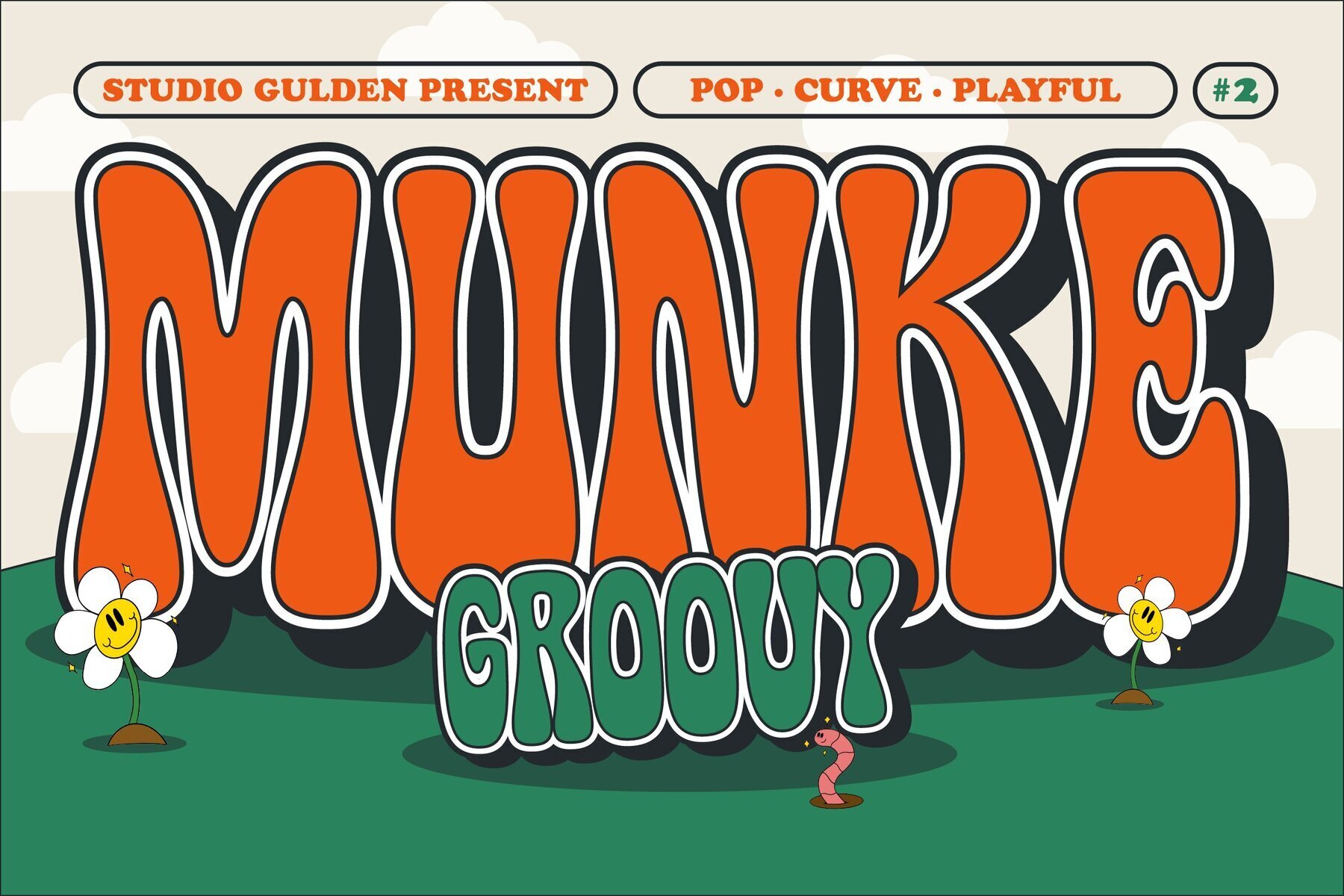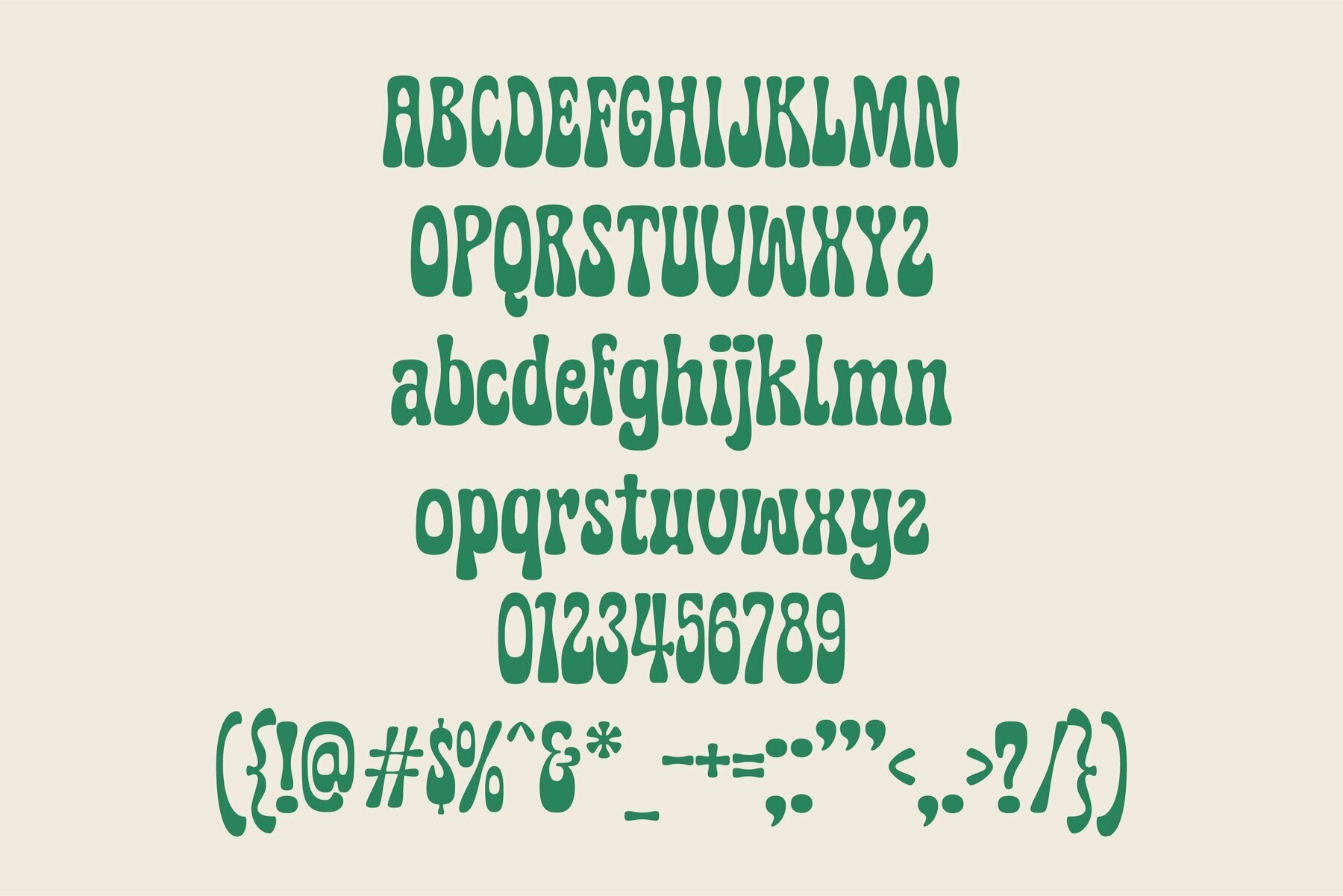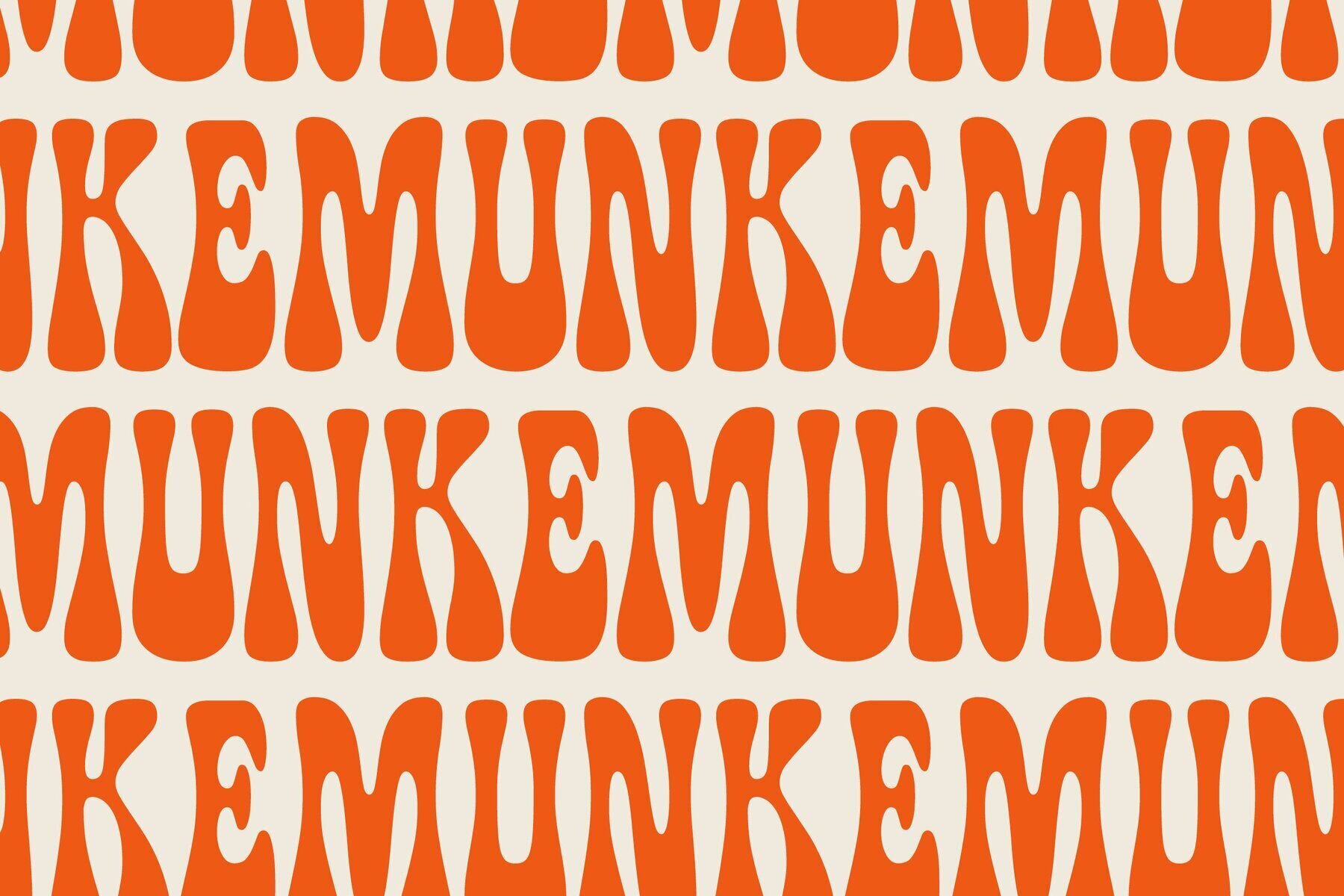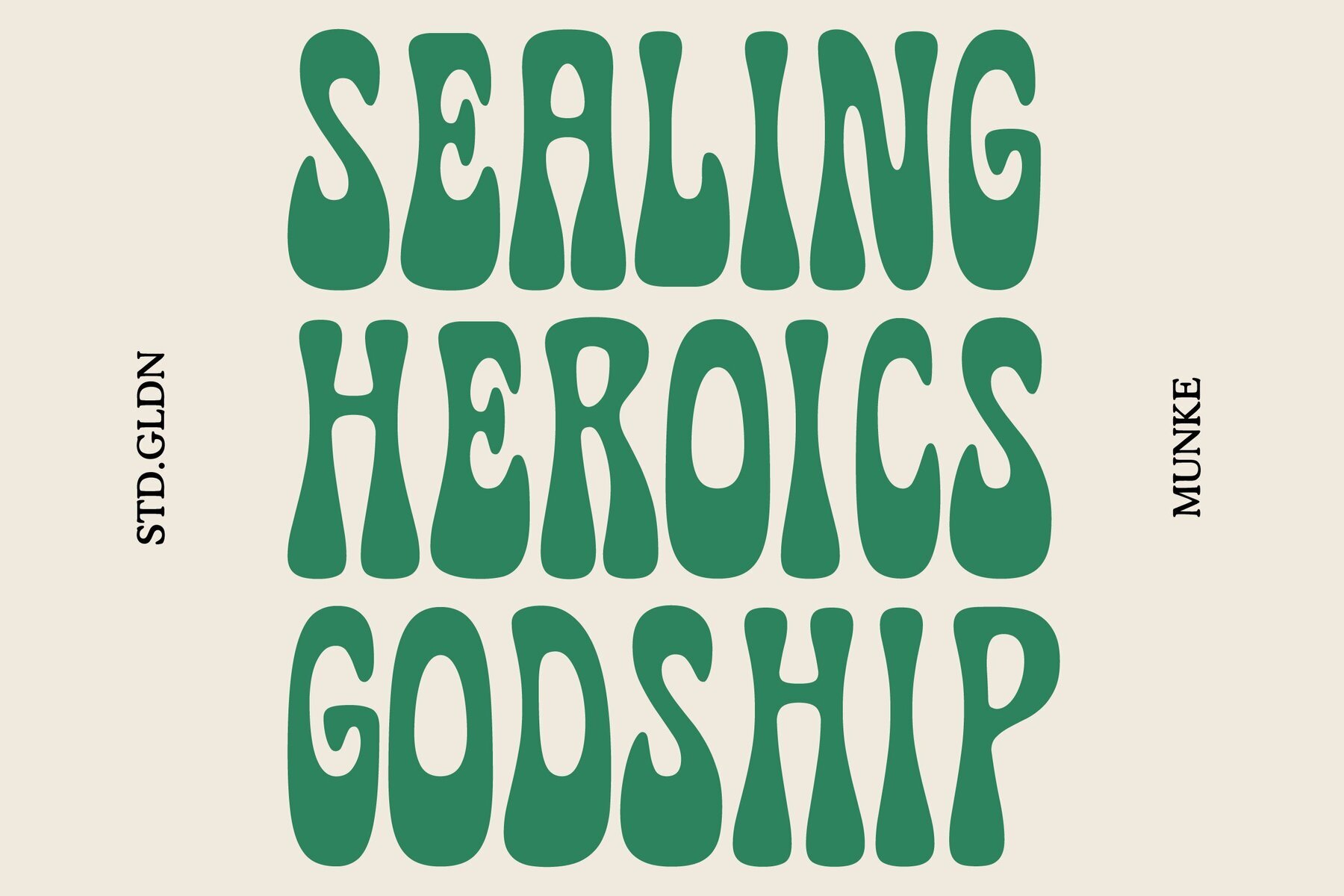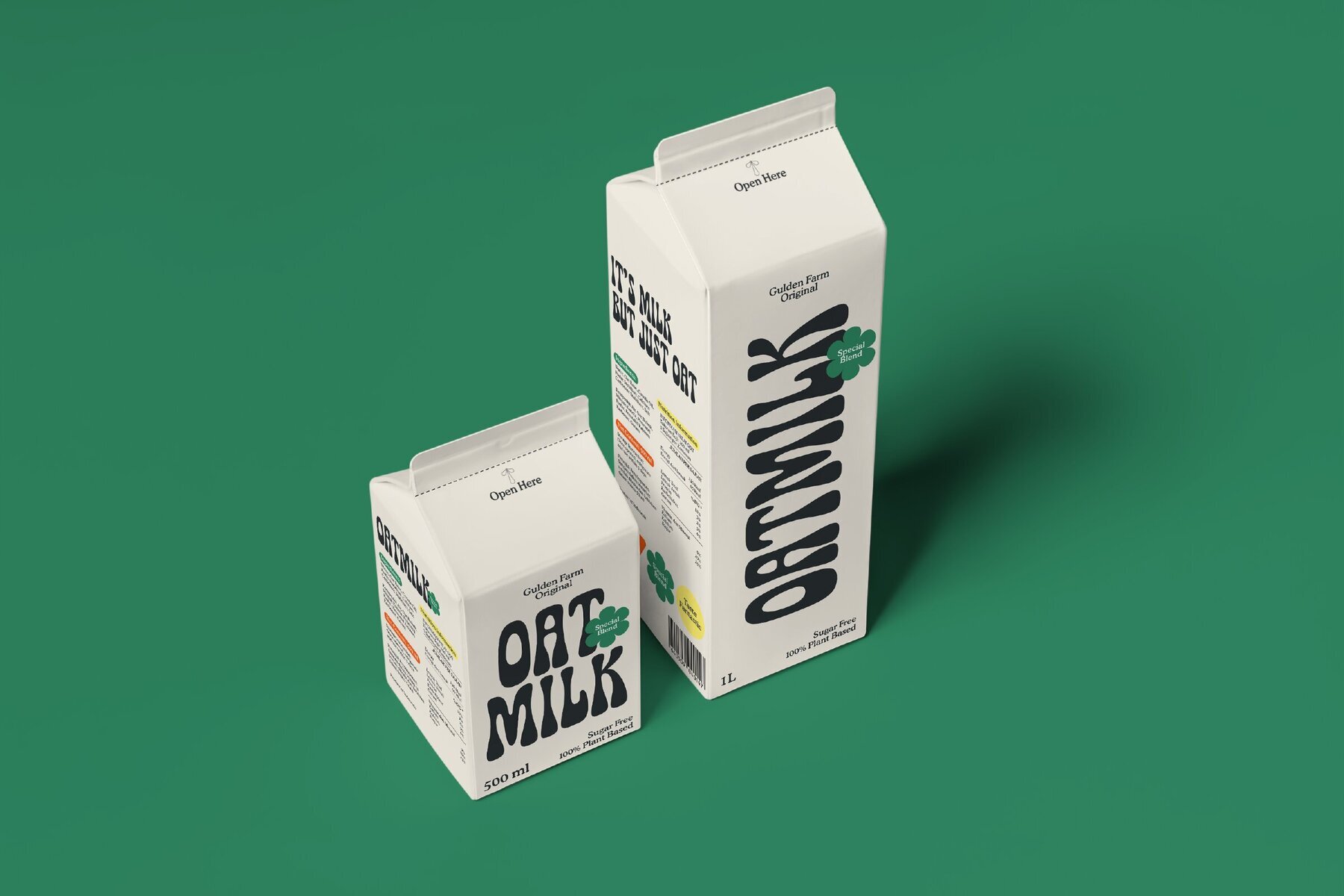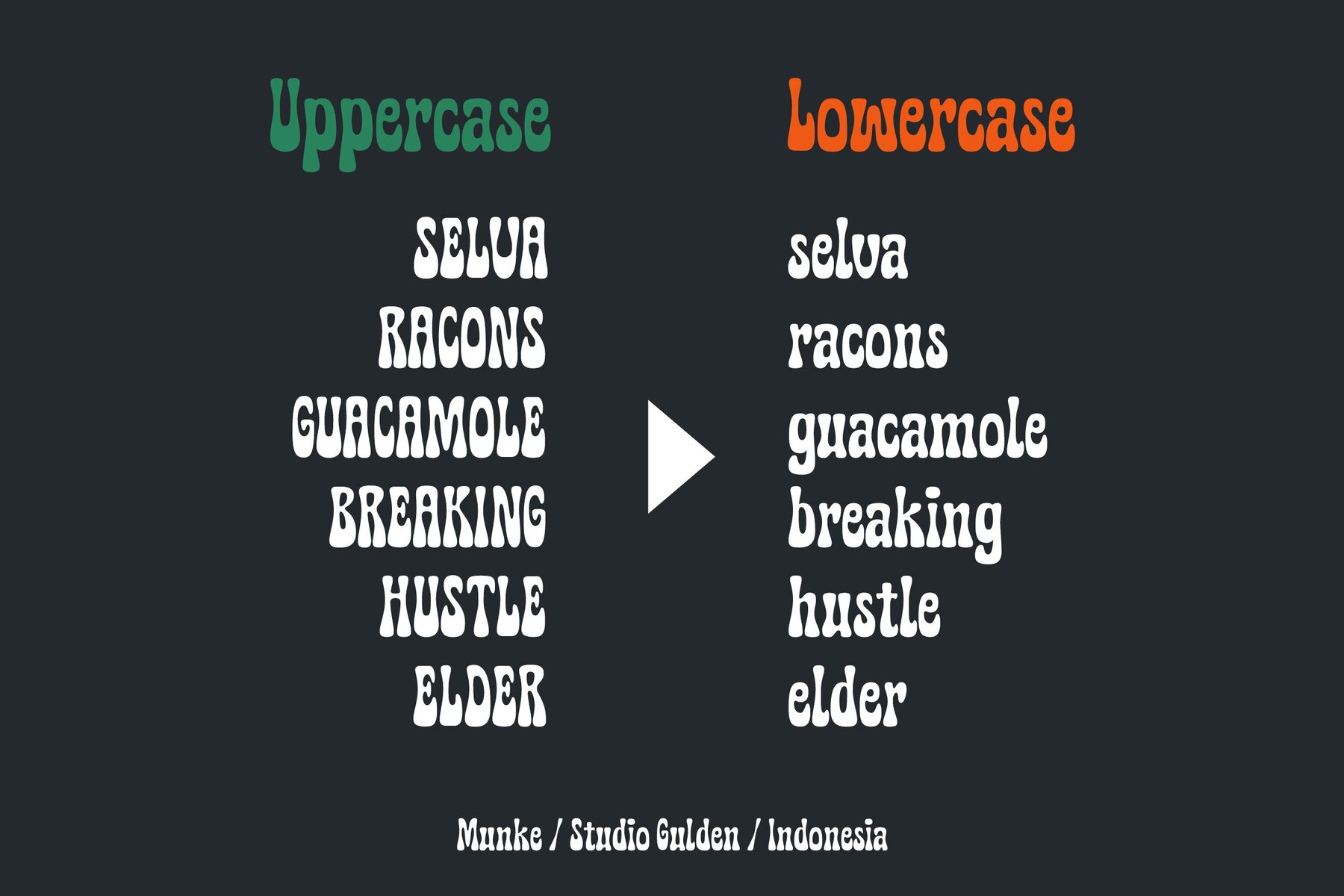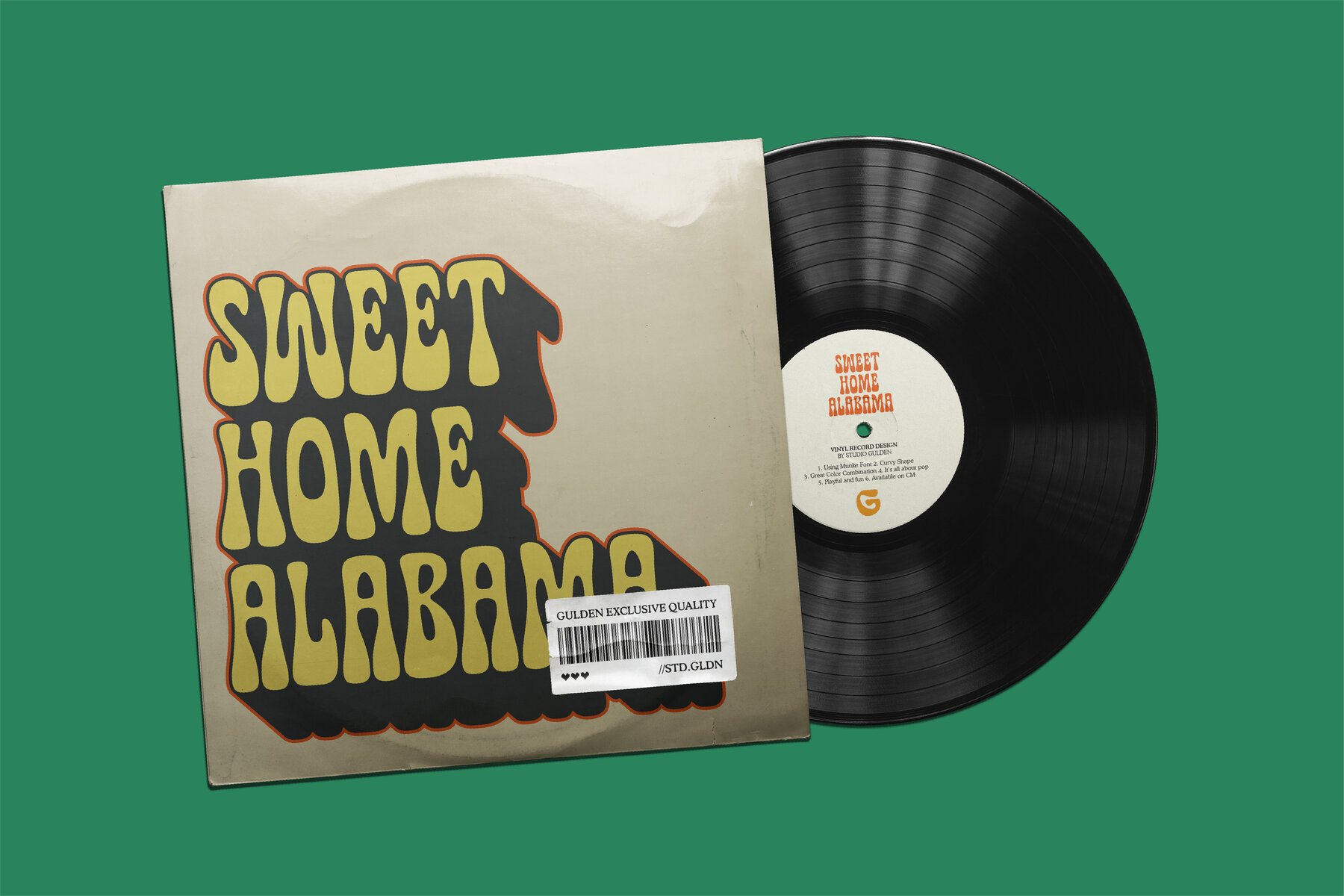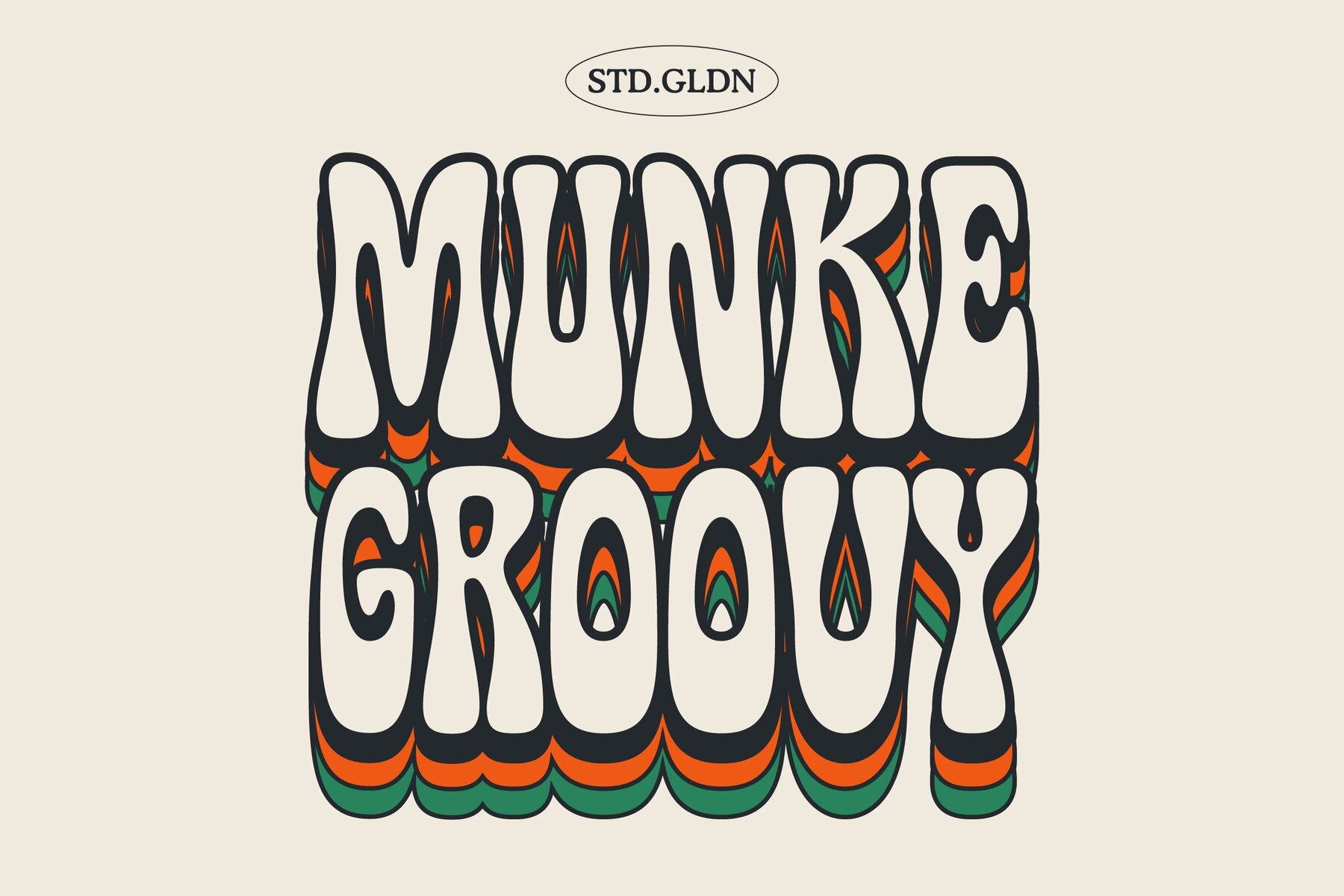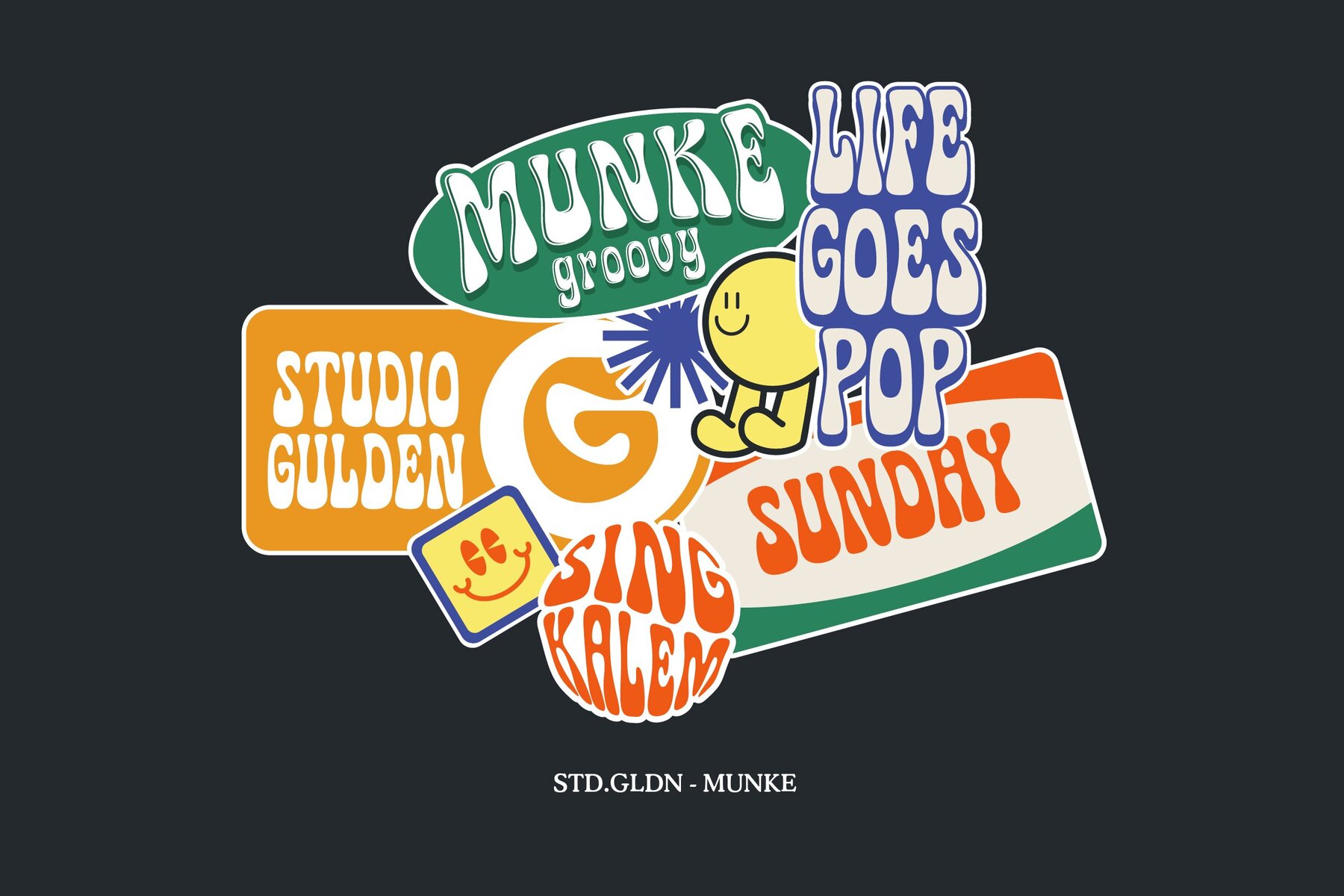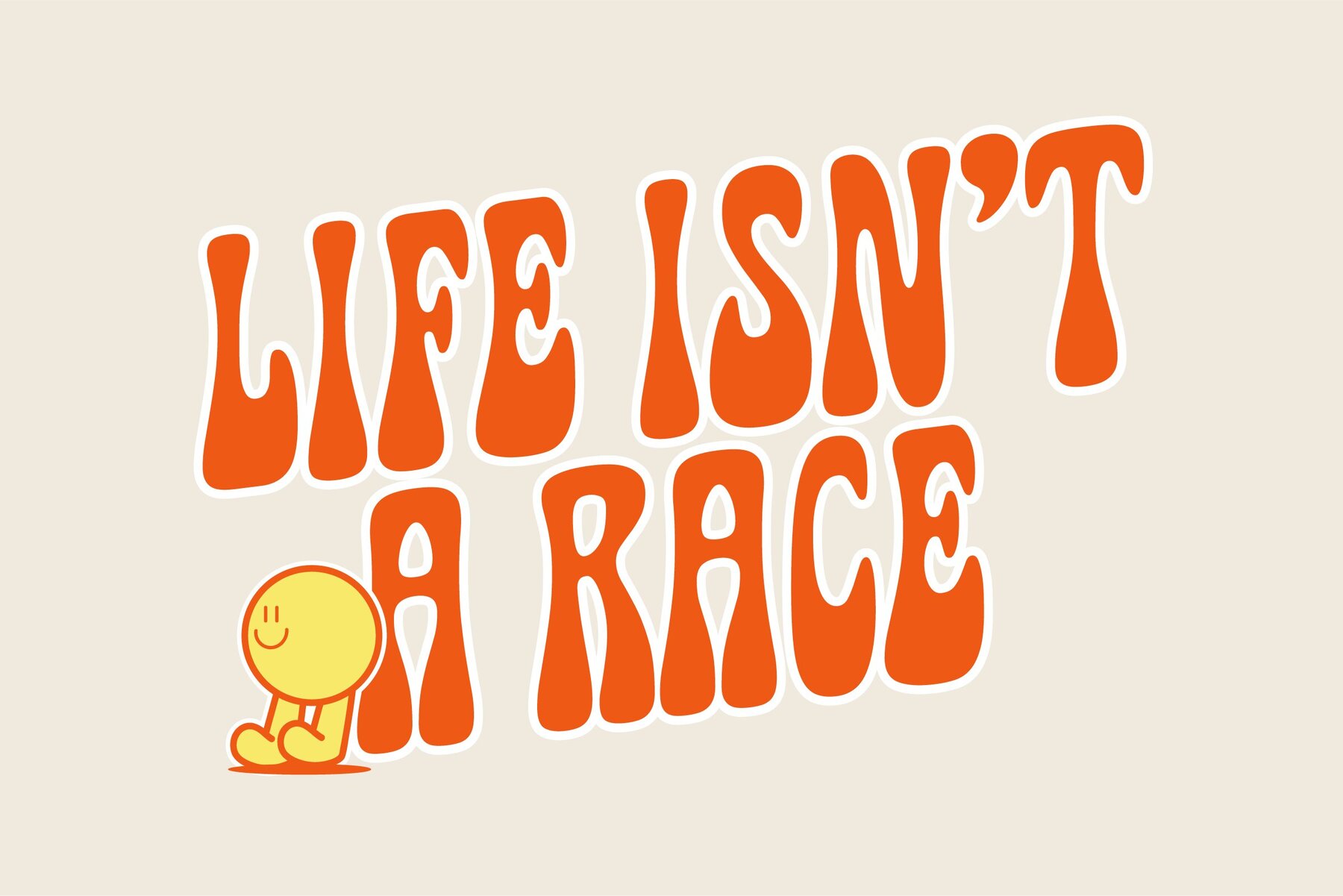
SG Munke Font
SG Munke Regular
SG Munke by Studio Gulden brings a unique flair to your design arsenal, combining groovy aesthetics with a cohesive curvy base shape. This display font is both versatile and charming, ideal for creating designs that dance between vintage nostalgia and modern pop art. Whether crafting a retro-inspired logo or an upbeat promotional poster, SG Munke aligns perfectly with your creative vision. Features:SG Munke: A Groovy Display Font With Curvy Appeal